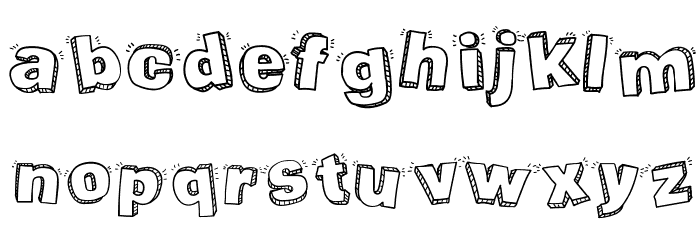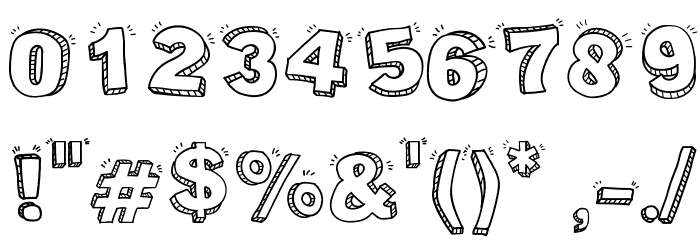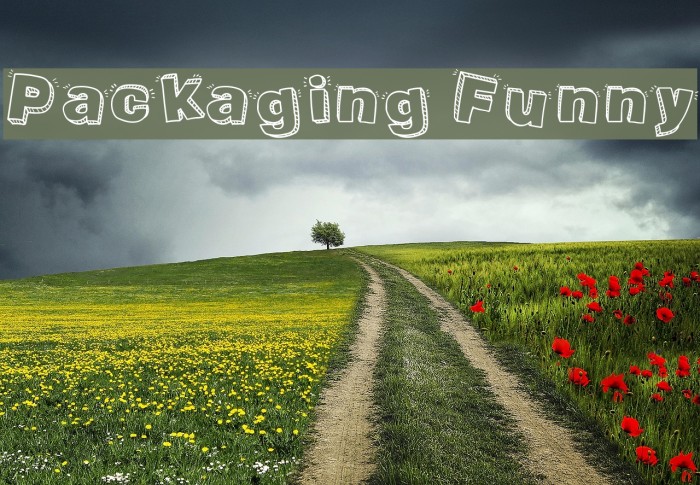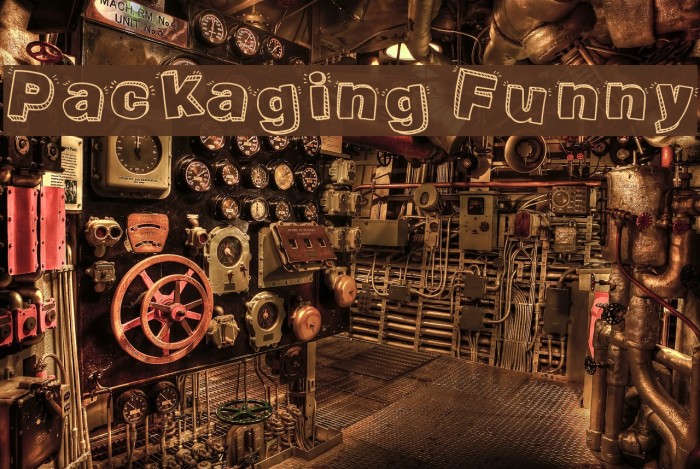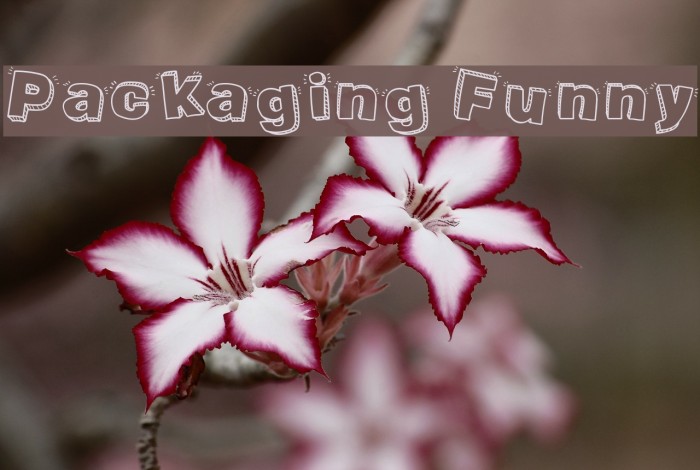
Packaging Funny Font
This playful and whimsical font features bold, cartoon-like letters with a hand-drawn aesthetic. Each character is outlined with a thick black line and filled with white, giving it a three-dimensional appearance. The font includes subtle decorative elements such as dots and lines that add to its quirky charm. The uppercase and lowercase letters maintain a consistent style, with rounded edges and a slightly irregular shape that enhances its informal and fun vibe. Numbers and special characters are designed to match the playful theme, making this font ideal for creative and lighthearted projects.
A playful, hand-drawn font with bold, cartoon-like characters and decorative elements.
- Proposed Projects: Ideal for children's books, comic strips, playful branding, party invitations, and fun social media graphics.
- Overall Style: Playful, Whimsical